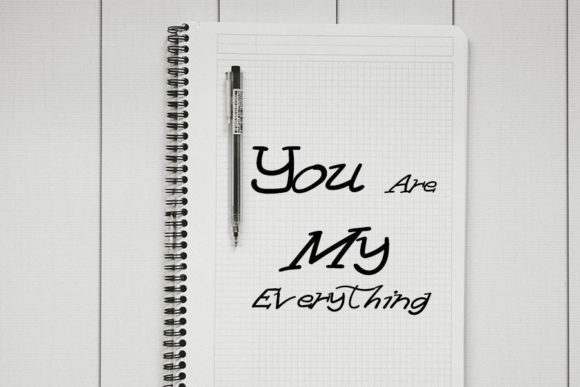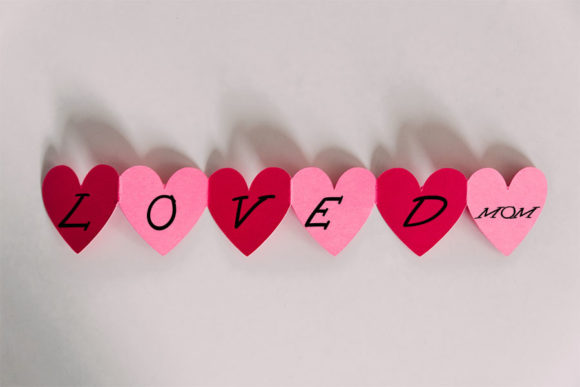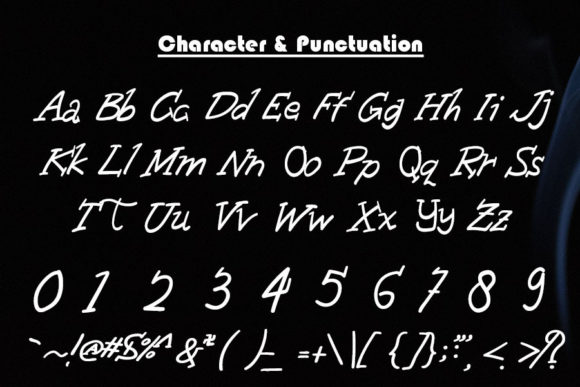
Introduction to Mothers Day Font
Mothers Day is an incredibly unique script font.
Simple and easy to use, this font will be very beautiful if you mix it with your various craft designs .